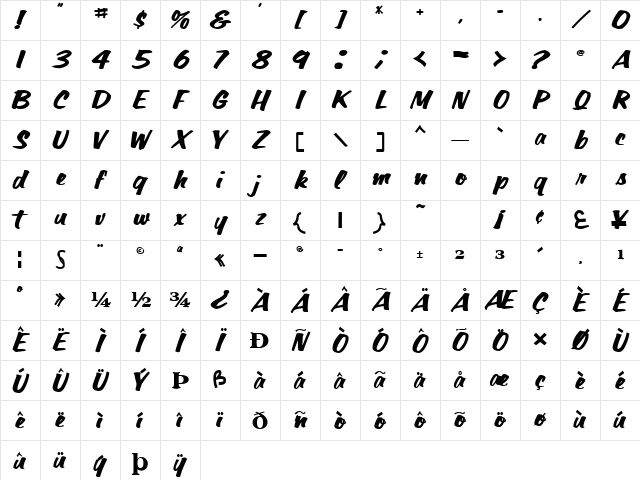
ReservedText46 Bold
Design Context for ReservedText46
ReservedText46 is a composed and adaptable typeface that performs quietly and consistently across a wide range of design contexts. Its bold stroke weight gives it real presence on the page.
Pro Tip: Use ReservedText46 in both headline and body roles to test its range before committing to a single application.